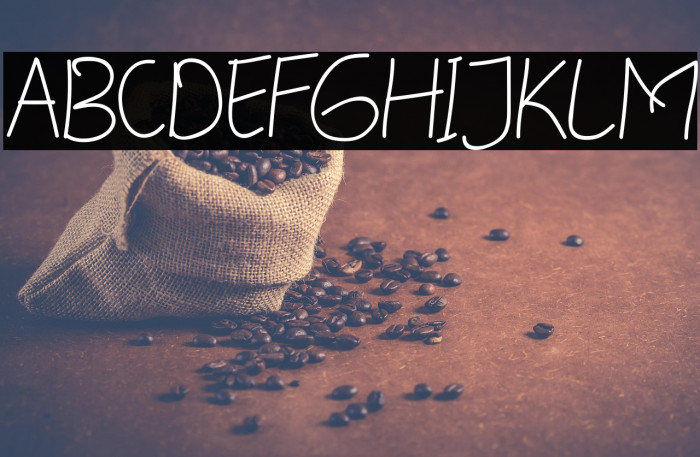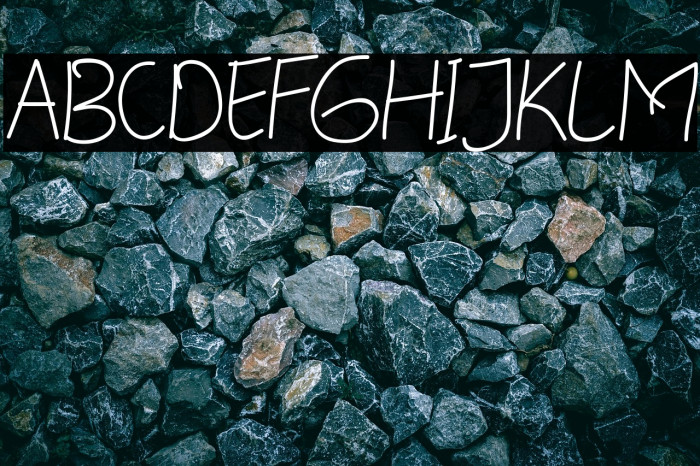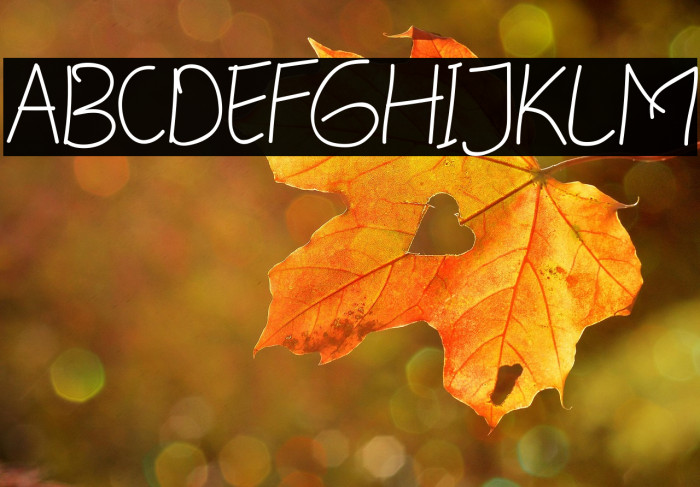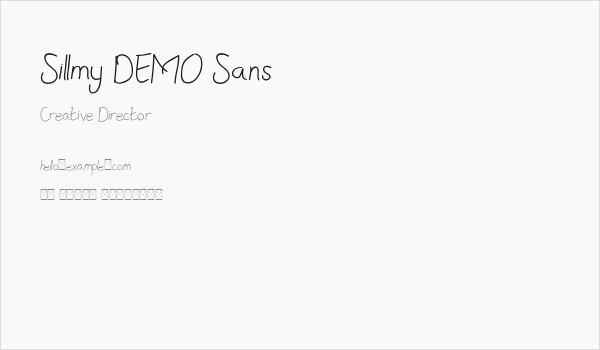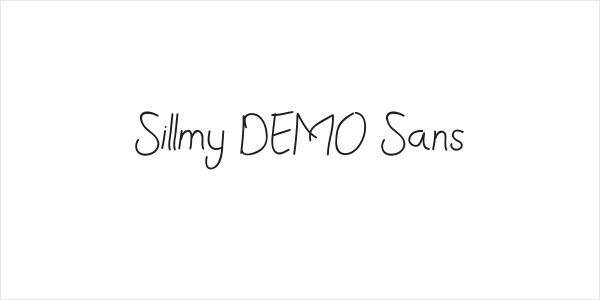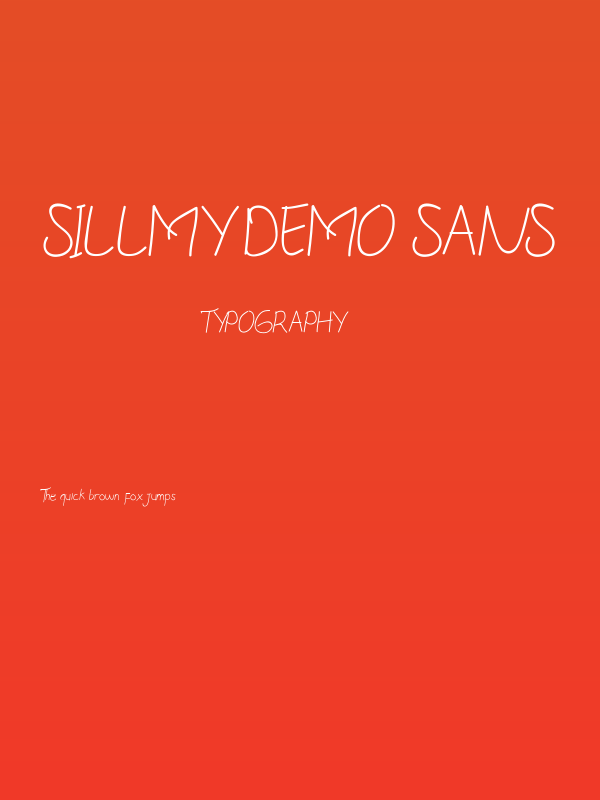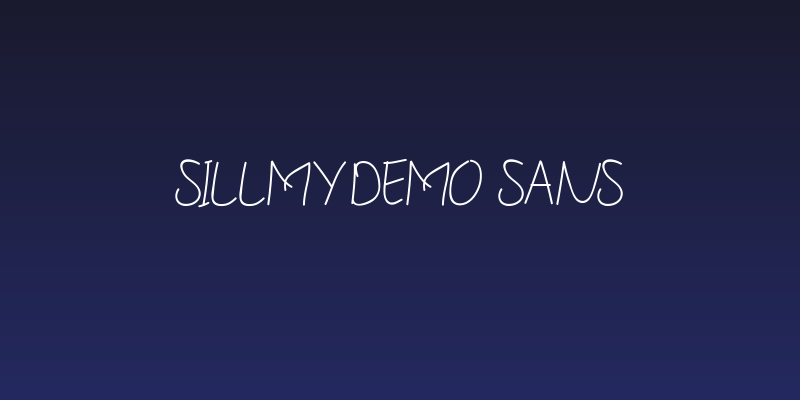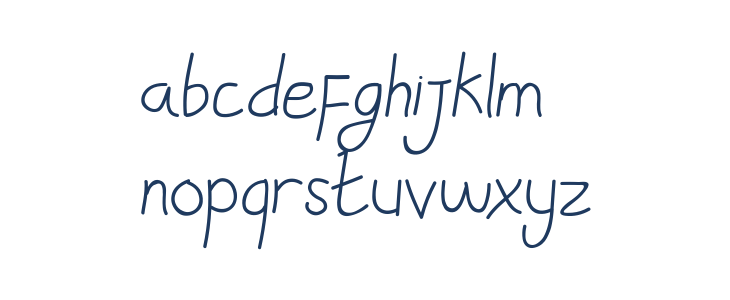
Sillmy DEMO Sans Font
Sillmy DEMO Sans Description
This font features a playful and casual handwritten style, characterized by its fluid and slightly irregular strokes. The uppercase letters are tall and slender, with a slight slant that adds to the informal feel. Lowercase letters maintain a consistent style, with some unique variations such as the distinctive 'g' and 't'. The overall appearance is light and airy, making it suitable for projects that require a personal touch. The font's simplicity and charm make it versatile for various design applications.
| Use Case | Logos, Invitations, Social Media Graphics |
| Proposed Projects | Ideal for greeting cards, invitations, personal branding, and casual social media graphics. |